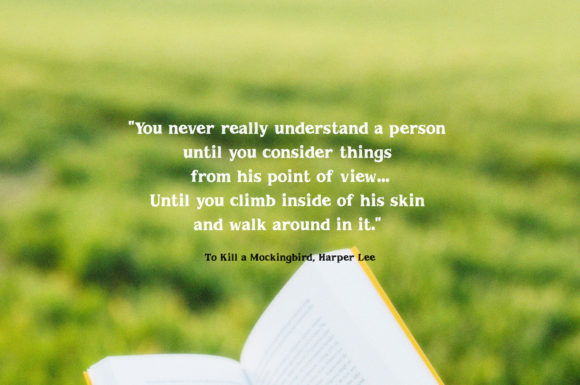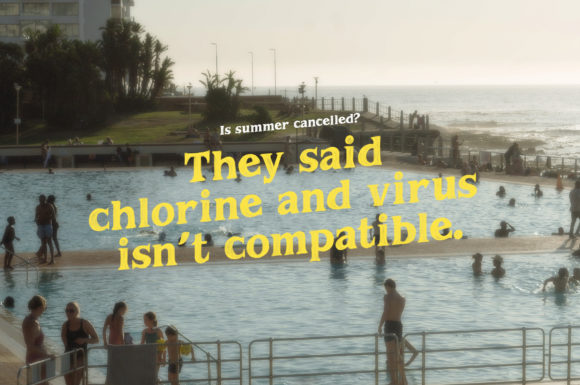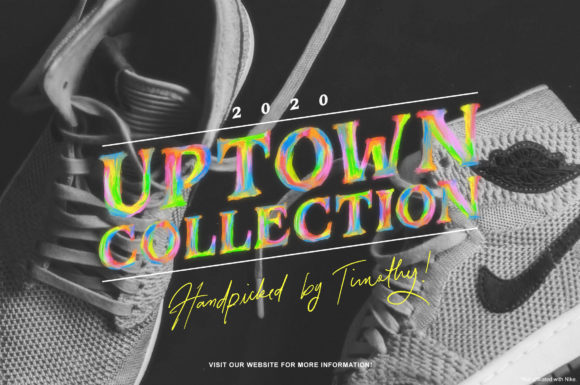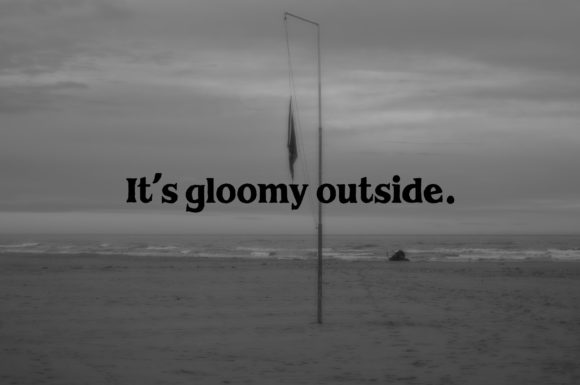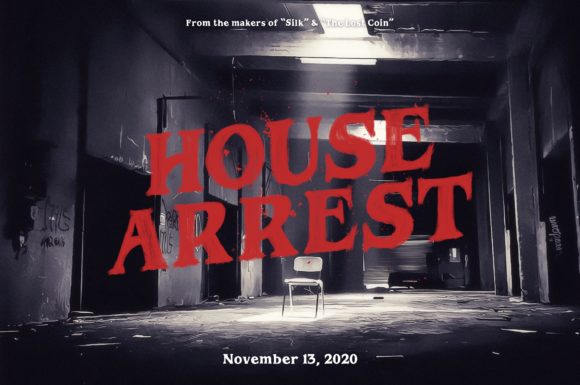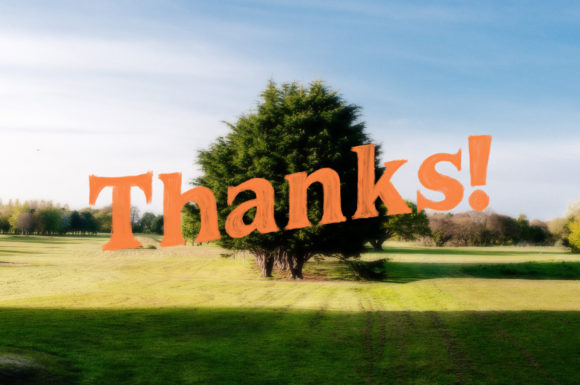
Introduction to Good Vibrations Font
Have you ever stumbled upon a font that perfectly captures the essence of your creative vision? That’s exactly what happened when designers first laid eyes on the Good Vibrations Font. Its simple yet elegant design has been a game-changer for many, elevating their projects to new heights.
Imagine you’re working on a design project, and you need a font that’s both classic and modern at the same time. You search for hours, browsing through various design resources, until you finally stumble upon the Good Vibrations Font. Its clean lines and high-quality design make it a perfect fit for your creative project, whether it’s a logo, brochure, or website.
What makes the Good Vibrations Font so valuable for designers is its versatility and accessibility. Not only can you download it for free, but it also comes with a transparent background, making it easy to integrate into any design. This font is truly a design treasure, and once you add it to your creative ideas, you’ll see how it makes them stand out in a crowded market.
Key Features of Good Vibrations Font
- Unique and vibrant design: The Good Vibrations Font is perfect for creative projects that require a bold and eye-catching style.
- Optimized for print and digital use: With a high-resolution design, the Good Vibrations Font is suitable for both print and digital applications, including signage, logos, and web graphics.
- Perfect for creative projects: This font is ideal for designers working on music-related projects, psychedelic designs, or any other creative project that requires a unique and energetic vibe.
- Size: The Good Vibrations Font comes in a single weight, making it easy to use in a variety of design contexts without worrying about font pairing or matching.
Honest Review: Good Vibrations Font
I recently had the chance to work with the Good Vibrations Font, and I must say it’s been a game-changer for my design projects. The high quality of this font is truly impressive, making it a valuable addition to any designer’s toolkit.
- ✨ One of the standout features of the Good Vibrations Font is its transparent background, which makes it incredibly versatile for use in various design applications.
- ✨ Another thing I appreciate about this font is its unique, playful aesthetic – it’s perfect for creative projects that need a little extra flair.
That being said, I do have a few minor complaints. The font can be a bit too bold at times, which may not be suitable for every design project.
- ⚠️ One potential limitation is that the font may not be ideal for projects that require a more subtle, understated look.
Overall, I’m thoroughly impressed with the Good Vibrations Font. Its unique style, high quality, and free availability make it a must-have resource for any designer looking to add some creativity to their projects.
Tips for Getting the Most Out of Good Vibrations Font
Experiment with different font sizes, colors, and styles to achieve a unique look. Use the font’s transparent background to create visually appealing designs. Combine the Good Vibrations Font with other design resources to create a cohesive and creative project.
The Good Vibrations Font is ideal for creative projects, such as social media graphics, presentations, and documents. It’s also suitable for design resource websites, blogs, and other online platforms.